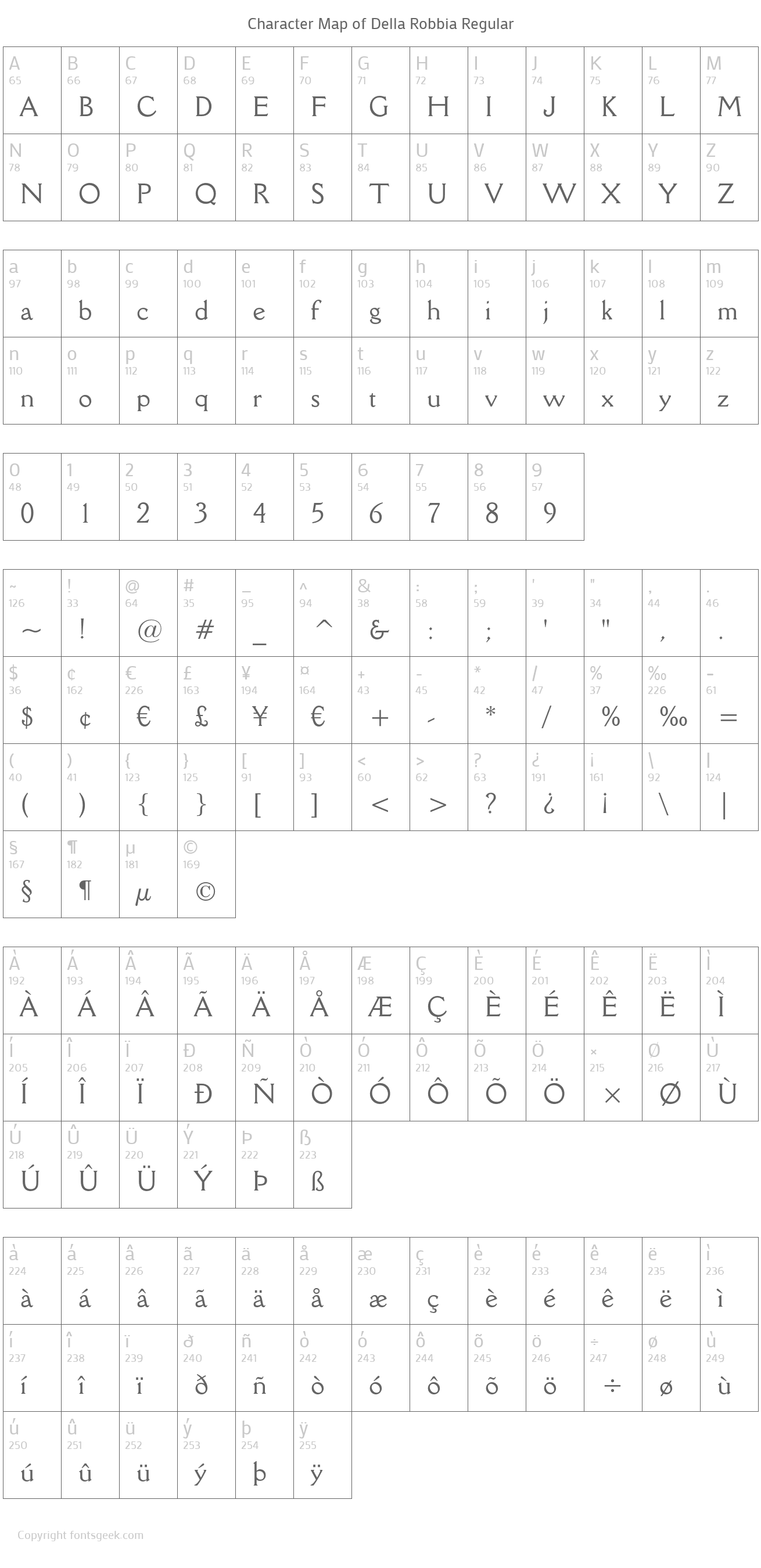
Della Robbia Font . Experience the charm of the renaissance with free della robbia fonts. Click the download button to download. Cleland’s typeface of the same name. The font subfamily is regular. Perfect for elegance, readability, and a vintage touch. Regular, bold, condensed and bold condensed. It contains 2 styles and. Aboreto is a display typeface based on early renaissance majuscule alphabet done by luca della robbia, a 15th century florentine sculptor. Della robbia is a font family with four styles: Della respira is a revival of the 1913 della robbia typeface by american type founders, based on t.m. It contains uppercase and lowercase letters, figures,. It was designed to be a. Della robbia is a typeface inspired by 15th century florentine inscriptional capitals, designed by thomas maitland cleland. Della robbia is the perfect font for all your fun designs.
Regular, bold, condensed and bold condensed. Della robbia is a font family with four styles: Della robbia is a typeface inspired by 15th century florentine inscriptional capitals, designed by thomas maitland cleland. Perfect for elegance, readability, and a vintage touch. It contains uppercase and lowercase letters, figures,. Della robbia is the perfect font for all your fun designs. Experience the charm of the renaissance with free della robbia fonts. The font subfamily is regular. It was designed to be a. Cleland’s typeface of the same name.
Della Robbia Font Regular, bold, condensed and bold condensed. The font subfamily is regular. Della robbia is the perfect font for all your fun designs. It was designed to be a. Experience the charm of the renaissance with free della robbia fonts. Della robbia is a typeface inspired by 15th century florentine inscriptional capitals, designed by thomas maitland cleland. Della respira is a revival of the 1913 della robbia typeface by american type founders, based on t.m. It contains uppercase and lowercase letters, figures,. Perfect for elegance, readability, and a vintage touch. Click the download button to download. Aboreto is a display typeface based on early renaissance majuscule alphabet done by luca della robbia, a 15th century florentine sculptor. Cleland’s typeface of the same name. Della robbia is a font family with four styles: It contains 2 styles and. Regular, bold, condensed and bold condensed.
Della Robbia Regular Download For Free, View Sample Text, Rating And Della Robbia Font It contains uppercase and lowercase letters, figures,. Cleland’s typeface of the same name. Experience the charm of the renaissance with free della robbia fonts. Aboreto is a display typeface based on early renaissance majuscule alphabet done by luca della robbia, a 15th century florentine sculptor. Click the download button to download. It contains 2 styles and. The font subfamily is. Della Robbia Font.
Della Robbia Bold Download for free at Free Fonts Della Robbia Font Click the download button to download. Perfect for elegance, readability, and a vintage touch. Della respira is a revival of the 1913 della robbia typeface by american type founders, based on t.m. It contains uppercase and lowercase letters, figures,. Della robbia is the perfect font for all your fun designs. Experience the charm of the renaissance with free della robbia. Della Robbia Font.
Della Robbia 36pt Skyline Type Foundry Della Robbia Font Cleland’s typeface of the same name. It contains uppercase and lowercase letters, figures,. It was designed to be a. Experience the charm of the renaissance with free della robbia fonts. It contains 2 styles and. Della robbia is a typeface inspired by 15th century florentine inscriptional capitals, designed by thomas maitland cleland. Della respira is a revival of the 1913. Della Robbia Font.
Della robbia font Della Robbia Font Aboreto is a display typeface based on early renaissance majuscule alphabet done by luca della robbia, a 15th century florentine sculptor. It contains uppercase and lowercase letters, figures,. Della robbia is a typeface inspired by 15th century florentine inscriptional capitals, designed by thomas maitland cleland. Perfect for elegance, readability, and a vintage touch. Regular, bold, condensed and bold condensed. Della. Della Robbia Font.
Holy water font Della Robbia Font It contains uppercase and lowercase letters, figures,. Della robbia is the perfect font for all your fun designs. Cleland’s typeface of the same name. Aboreto is a display typeface based on early renaissance majuscule alphabet done by luca della robbia, a 15th century florentine sculptor. The font subfamily is regular. Experience the charm of the renaissance with free della robbia. Della Robbia Font.